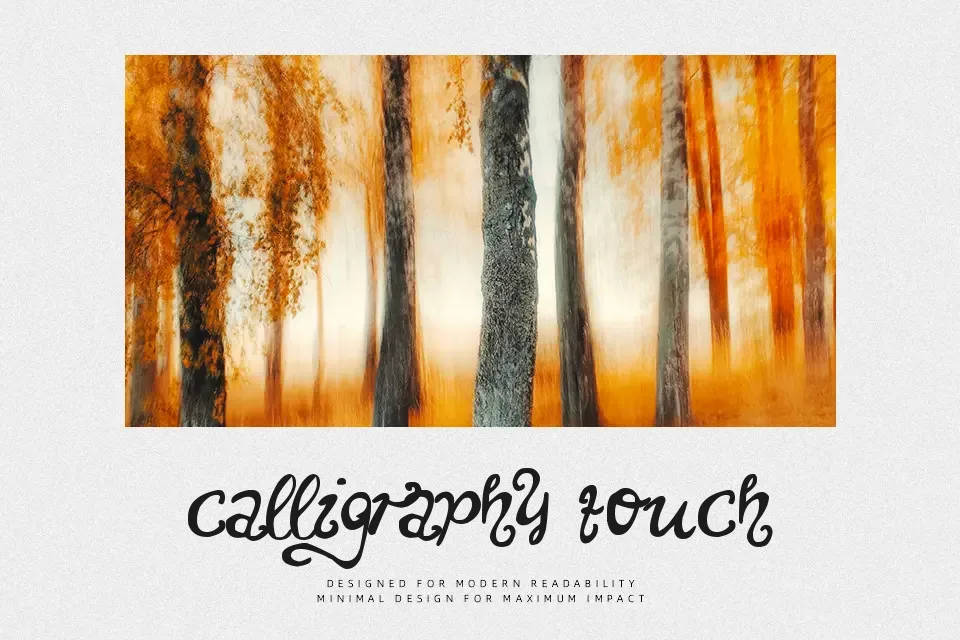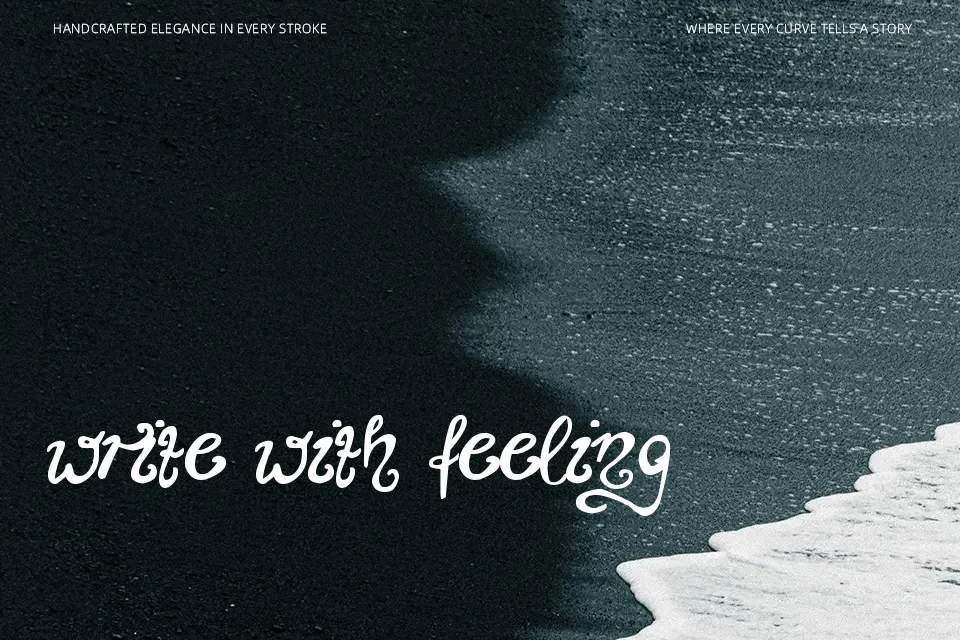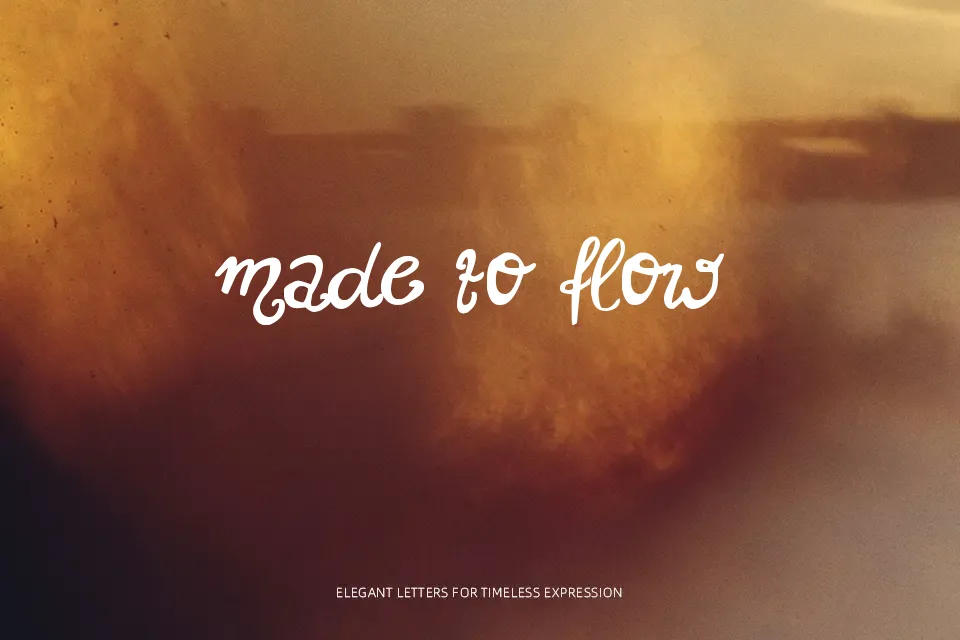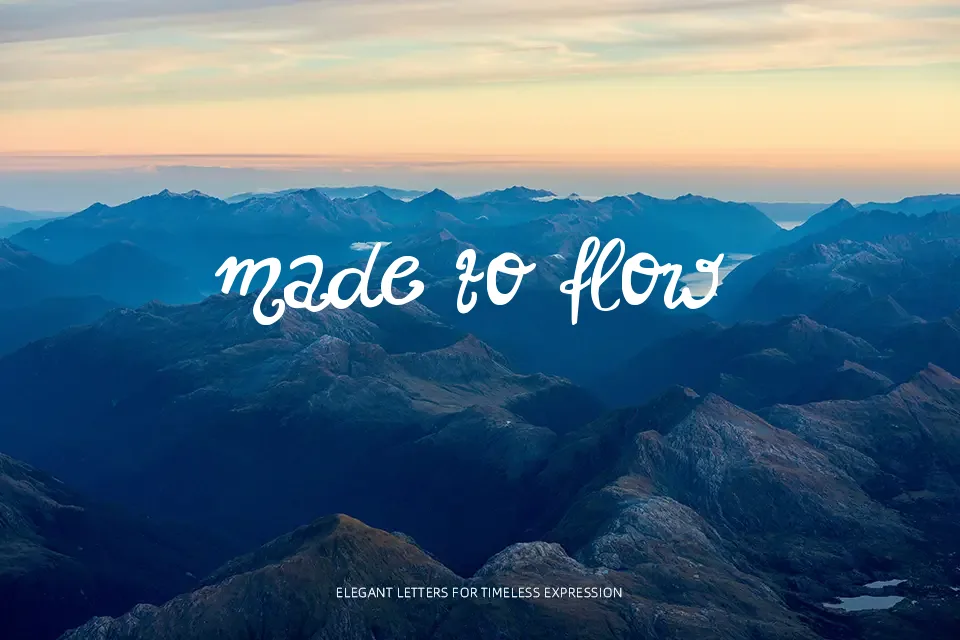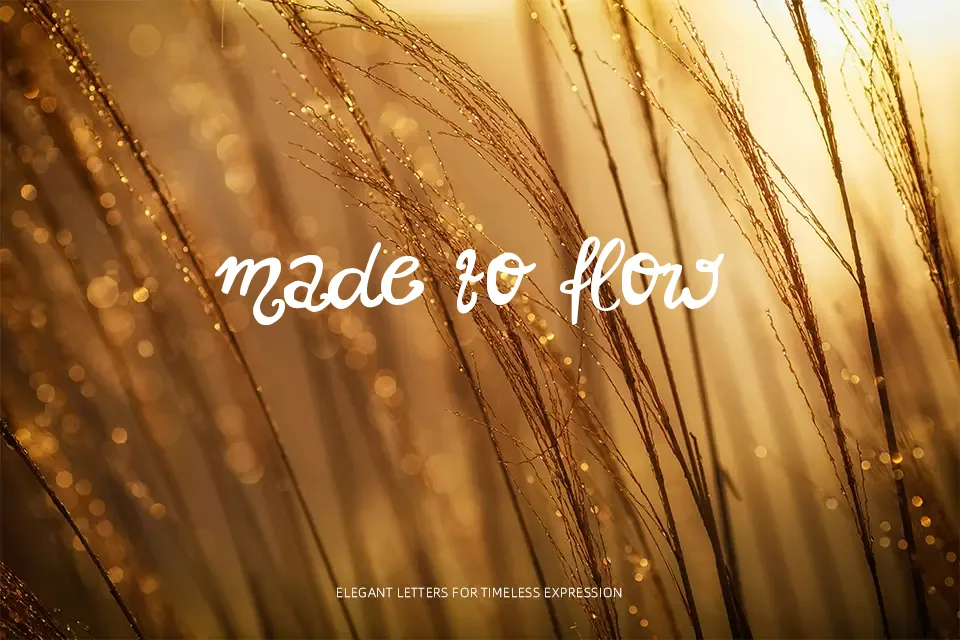
Unchanged Thoughts Font
Unchanged Thoughts Font features an intricate decorative script built with fluid curvatures, pronounced stroke contrast, and exaggerated coiled terminals. The letterforms exhibit lively, varied proportions alongside loose joins that create an eccentric, rhythmic flow across large titles. Generous spacing accommodates the dramatic swashes and curving flourishes, preserving individual character distinction in prominent display layouts. These elaborate calligraphic details make the design particularly effective for stylized music album covers and expressive event signage. However, the complex ornamentation and looping flourishes significantly hinder legibility at small sizes, making continuous body text uncomfortable to navigate. The typeface functions best when given ample breathing room in isolated display compositions.
Best For: music album artwork,thematic event posters,boutique apparel branding,invitation titles
Not Ideal For: dense editorial paragraphs,mobile application interface text,small product labels,long-form reading
Perfect for branding, headline, and invitation, with a artistic and calligraphy style.